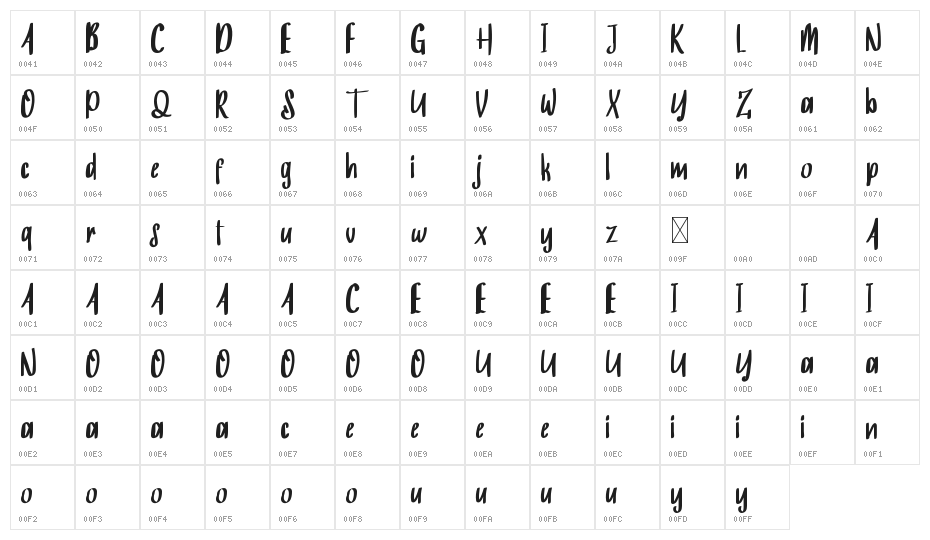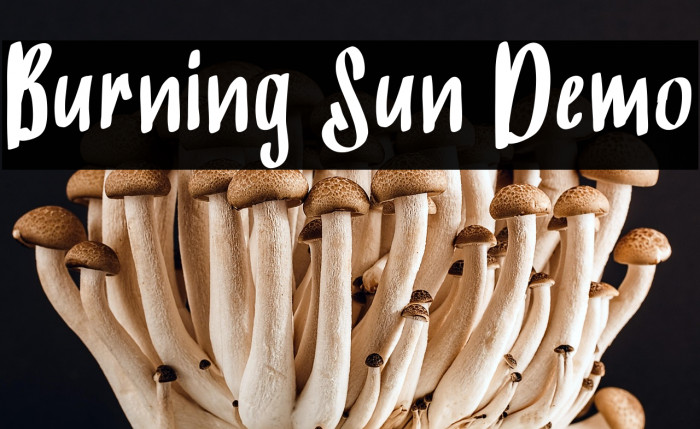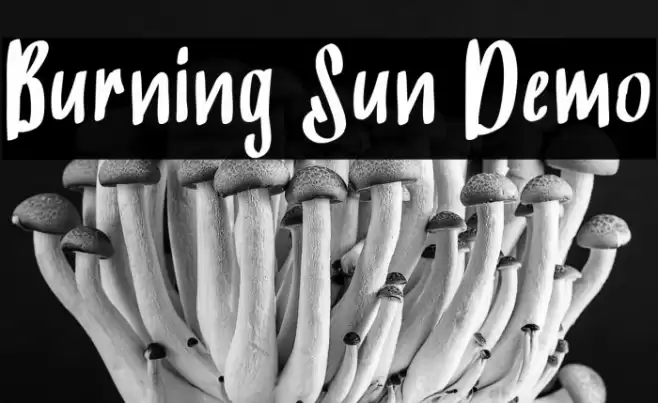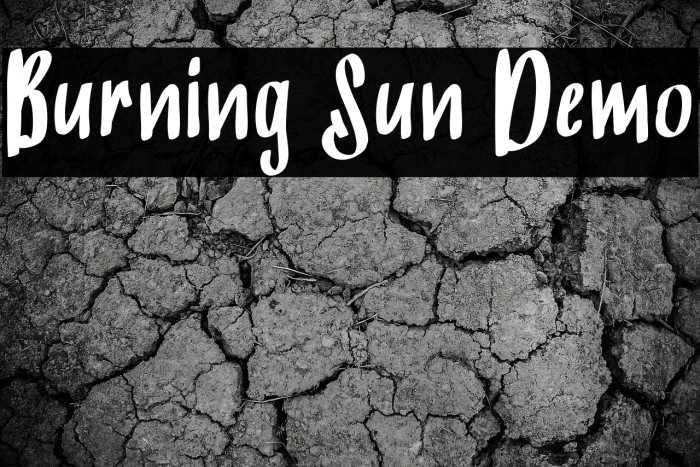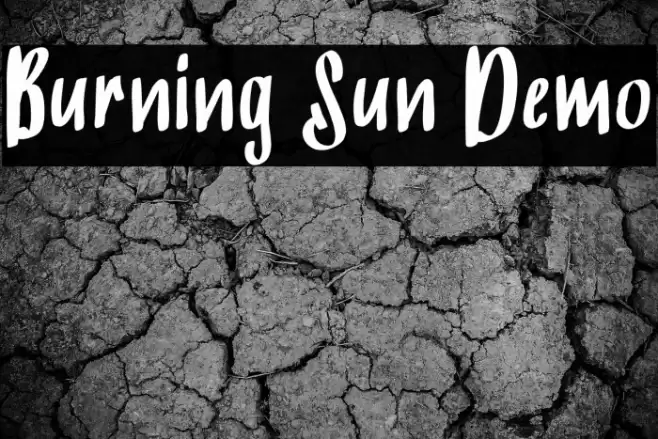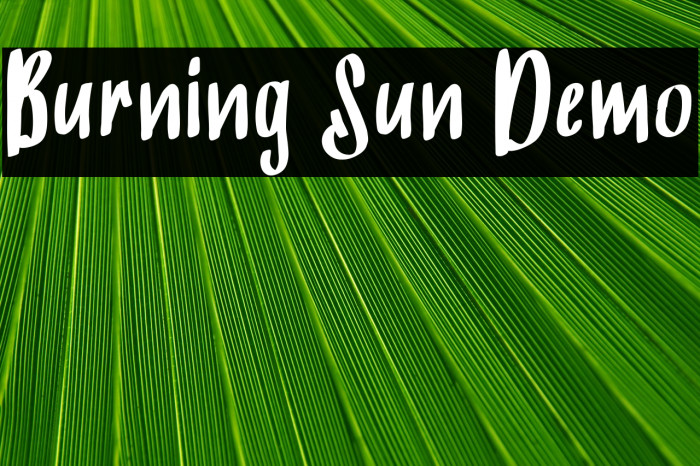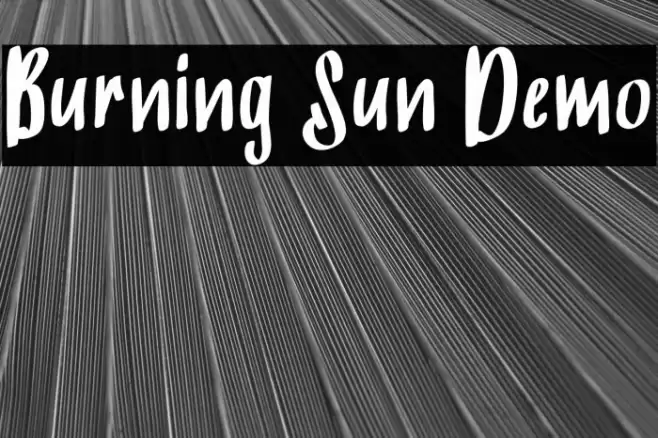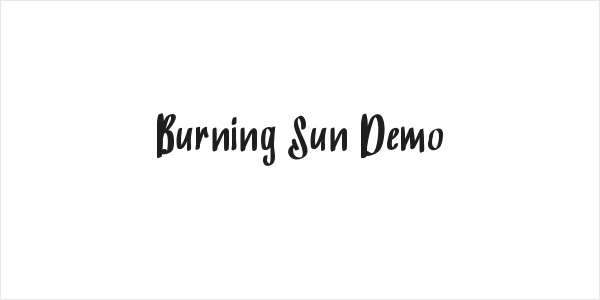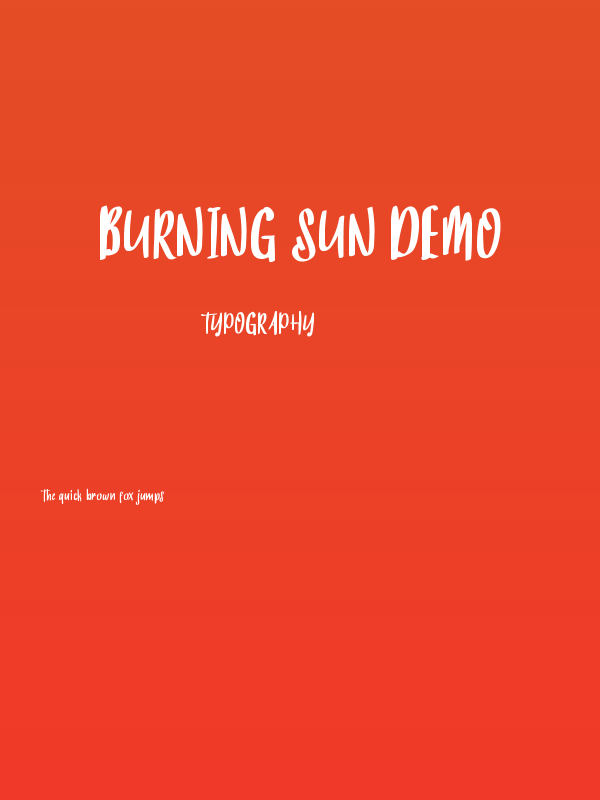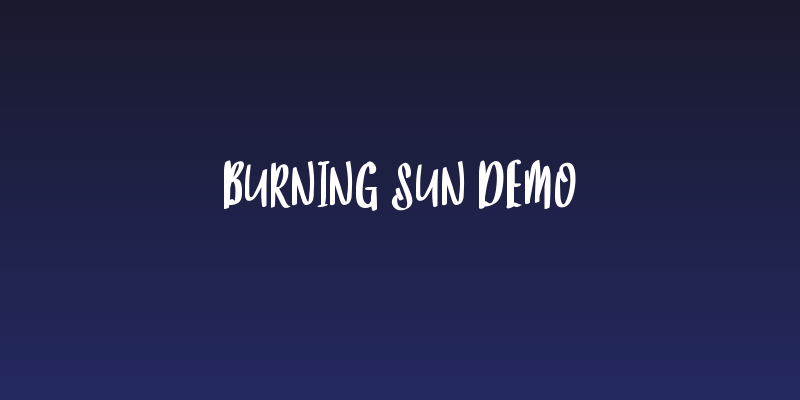
Burning Sun Demo Font
Burning Sun Demo Description
This font exhibits a bold and dynamic handwritten style, characterized by its thick, brush-like strokes and playful, irregular forms. The uppercase letters are bold and commanding, with a slight slant that adds a sense of movement and energy. The lowercase letters maintain a consistent style, with rounded edges and a casual, friendly appearance. The numbers and special characters follow the same aesthetic, ensuring a cohesive look across all text. The font's overall appearance is lively and expressive, making it ideal for projects that require a personal touch or a sense of creativity.